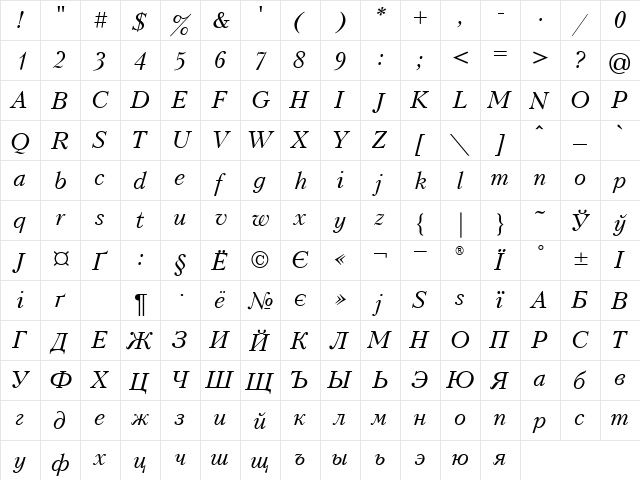
UkrainianKudriashov Italic Font Preview
UkrainianKudriashov Italic
Design Context for UkrainianKudriashov Typeface
UkrainianKudriashov is a composed and adaptable typeface that performs quietly and consistently across a wide range of design contexts. Its italic angle brings a sense of urgency and motion to the letterforms.
Pro Tip: Use UkrainianKudriashov for emphasis, pull quotes, and subheadings where its slanted energy can add rhythm to the layout.